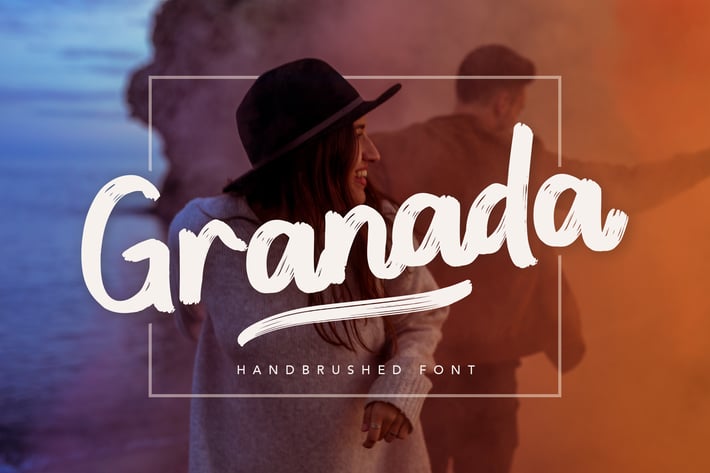
Granada Hand brushed Font
A handwritten brush font with a bold and fun feel united into one. Granada is perfect for branding projects, beauty-themed, - or a stylish text overlay to any background image.
+ Granada Regular: Hand brushed font type with a bold and fun character. It is perfect for the beauty and any clean layout.
+ Granada Swash: A set of 26 hand-drawn swashes, the perfect finishing touch to underline your Granada text. Simply install this as a separate font, select it from your font menu and type any A-Z or a-z character to create a swash.
Granada Features:
+ Font type with fun and bold character.
+ Extra Swash
+ Numbering and Punctuation